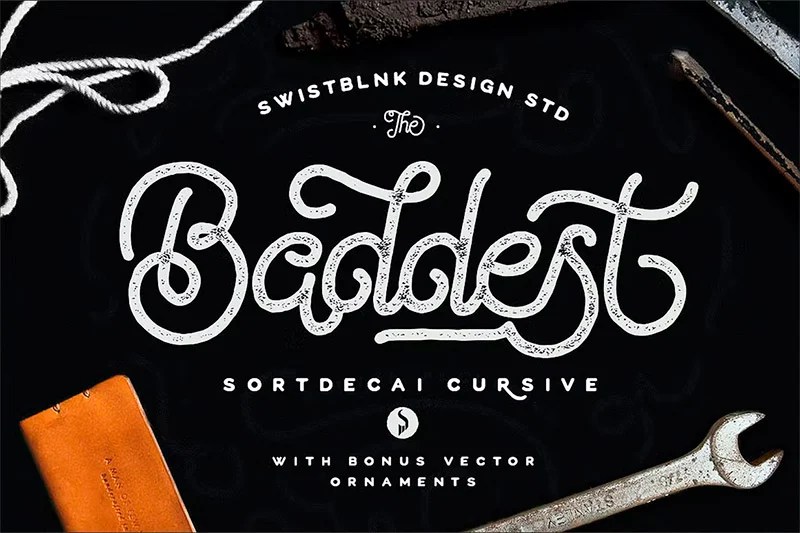
Best Cursive Fonts Illustrator . Didot pro — a luxurious & classy adobe font; Looking for the perfect cursive script font? Whether you're looking for tattoo cursive fonts, fancy cursive fonts, or even really different cursive fonts, there's plenty to see. For the complete list, scroll on! Renata — the best adobe cursive font; Fertigo script is a warm, sturdy, connecting script. Check out this collection to find the best cursive font for your next project. Whenever you want to convey formality or elegance, the cursive font selection is the one to focus on. So without further ado, here are five adobe script fonts worthy of your consideration. Cursive (also known as joint writing or running writing, or handwriting) is any style of penmanship in which the symbols of the language are written in a. Search the adobe fonts library by name, foundry, designer, or keyword—or upload an image to match your type sample with visual search.
Whether you're looking for tattoo cursive fonts, fancy cursive fonts, or even really different cursive fonts, there's plenty to see. Fertigo script is a warm, sturdy, connecting script. Cursive (also known as joint writing or running writing, or handwriting) is any style of penmanship in which the symbols of the language are written in a. Didot pro — a luxurious & classy adobe font; Whenever you want to convey formality or elegance, the cursive font selection is the one to focus on. Looking for the perfect cursive script font? For the complete list, scroll on! Check out this collection to find the best cursive font for your next project. So without further ado, here are five adobe script fonts worthy of your consideration. Search the adobe fonts library by name, foundry, designer, or keyword—or upload an image to match your type sample with visual search.
Best Cursive Fonts Illustrator Looking for the perfect cursive script font? Search the adobe fonts library by name, foundry, designer, or keyword—or upload an image to match your type sample with visual search. Looking for the perfect cursive script font? Whenever you want to convey formality or elegance, the cursive font selection is the one to focus on. Fertigo script is a warm, sturdy, connecting script. For the complete list, scroll on! So without further ado, here are five adobe script fonts worthy of your consideration. Cursive (also known as joint writing or running writing, or handwriting) is any style of penmanship in which the symbols of the language are written in a. Whether you're looking for tattoo cursive fonts, fancy cursive fonts, or even really different cursive fonts, there's plenty to see. Didot pro — a luxurious & classy adobe font; Renata — the best adobe cursive font; Check out this collection to find the best cursive font for your next project.
The Best Cursive Fonts for Your Blog Design Best cursive fonts Best Cursive Fonts Illustrator Check out this collection to find the best cursive font for your next project. Fertigo script is a warm, sturdy, connecting script. For the complete list, scroll on! Cursive (also known as joint writing or running writing, or handwriting) is any style of penmanship in which the symbols of the language are written in a. So without further ado, here. Best Cursive Fonts Illustrator.
50+ Best Canva Cursive Fonts for EyeCatchy Designs (Free & Pro Best Cursive Fonts Illustrator Check out this collection to find the best cursive font for your next project. Fertigo script is a warm, sturdy, connecting script. Whenever you want to convey formality or elegance, the cursive font selection is the one to focus on. For the complete list, scroll on! Search the adobe fonts library by name, foundry, designer, or keyword—or upload an image. Best Cursive Fonts Illustrator.
Top 20 Popular Cursive Fonts Best Cursive Fonts on the Best Cursive Fonts Illustrator Check out this collection to find the best cursive font for your next project. Whether you're looking for tattoo cursive fonts, fancy cursive fonts, or even really different cursive fonts, there's plenty to see. Didot pro — a luxurious & classy adobe font; Whenever you want to convey formality or elegance, the cursive font selection is the one to focus. Best Cursive Fonts Illustrator.
Incredible Best Cursive Font Style Free Download Basic Idea Best Cursive Fonts Illustrator Whenever you want to convey formality or elegance, the cursive font selection is the one to focus on. So without further ado, here are five adobe script fonts worthy of your consideration. Fertigo script is a warm, sturdy, connecting script. For the complete list, scroll on! Check out this collection to find the best cursive font for your next project.. Best Cursive Fonts Illustrator.
35 Cursive Fonts for Creative Design Inspiration Best Cursive Fonts Illustrator So without further ado, here are five adobe script fonts worthy of your consideration. Fertigo script is a warm, sturdy, connecting script. Cursive (also known as joint writing or running writing, or handwriting) is any style of penmanship in which the symbols of the language are written in a. Check out this collection to find the best cursive font for. Best Cursive Fonts Illustrator.
Top 20 Popular Cursive Fonts Best Cursive Fonts on the Best Cursive Fonts Illustrator Renata — the best adobe cursive font; Looking for the perfect cursive script font? Cursive (also known as joint writing or running writing, or handwriting) is any style of penmanship in which the symbols of the language are written in a. Whenever you want to convey formality or elegance, the cursive font selection is the one to focus on. So. Best Cursive Fonts Illustrator.
Simply Beautiful Cursive Fonts Best Cursive Fonts Illustrator Whether you're looking for tattoo cursive fonts, fancy cursive fonts, or even really different cursive fonts, there's plenty to see. Check out this collection to find the best cursive font for your next project. Fertigo script is a warm, sturdy, connecting script. Looking for the perfect cursive script font? Didot pro — a luxurious & classy adobe font; Renata —. Best Cursive Fonts Illustrator.
15+ Best Cursive Fonts for Cricut Crafting (Handpicked!) Best Cursive Fonts Illustrator Search the adobe fonts library by name, foundry, designer, or keyword—or upload an image to match your type sample with visual search. Cursive (also known as joint writing or running writing, or handwriting) is any style of penmanship in which the symbols of the language are written in a. So without further ado, here are five adobe script fonts worthy. Best Cursive Fonts Illustrator.